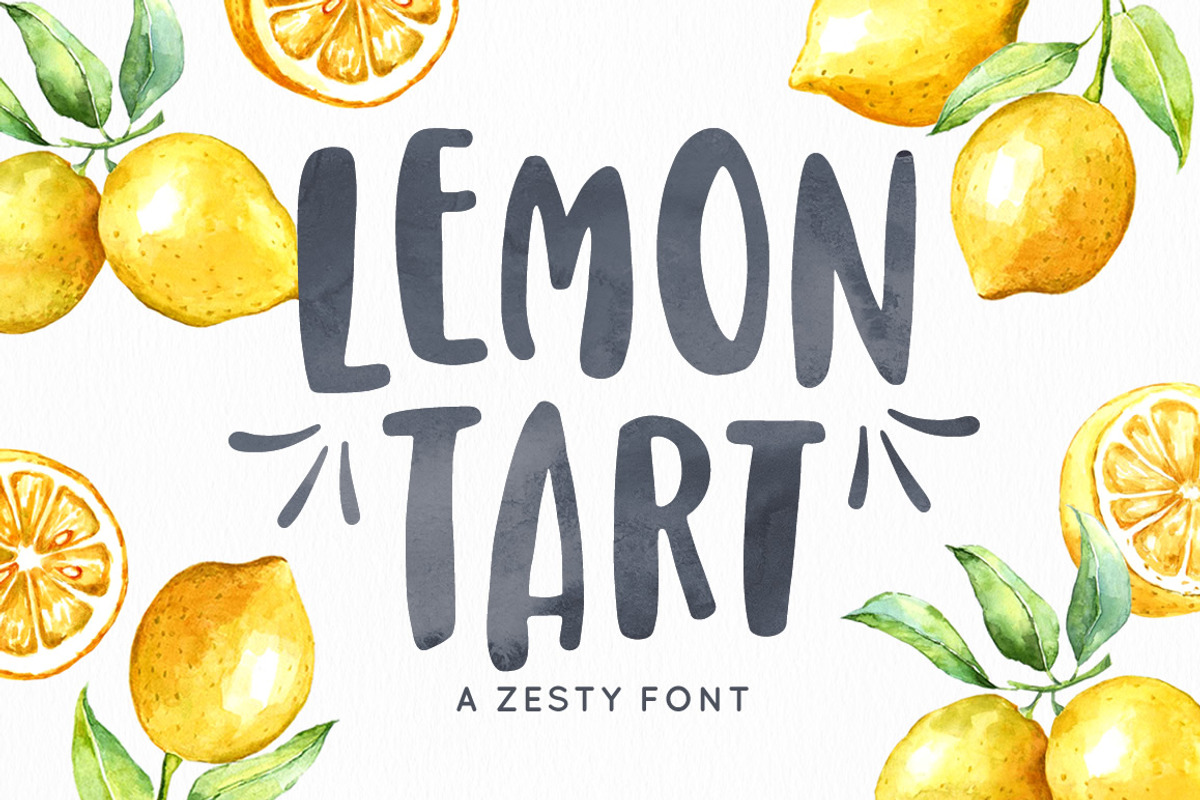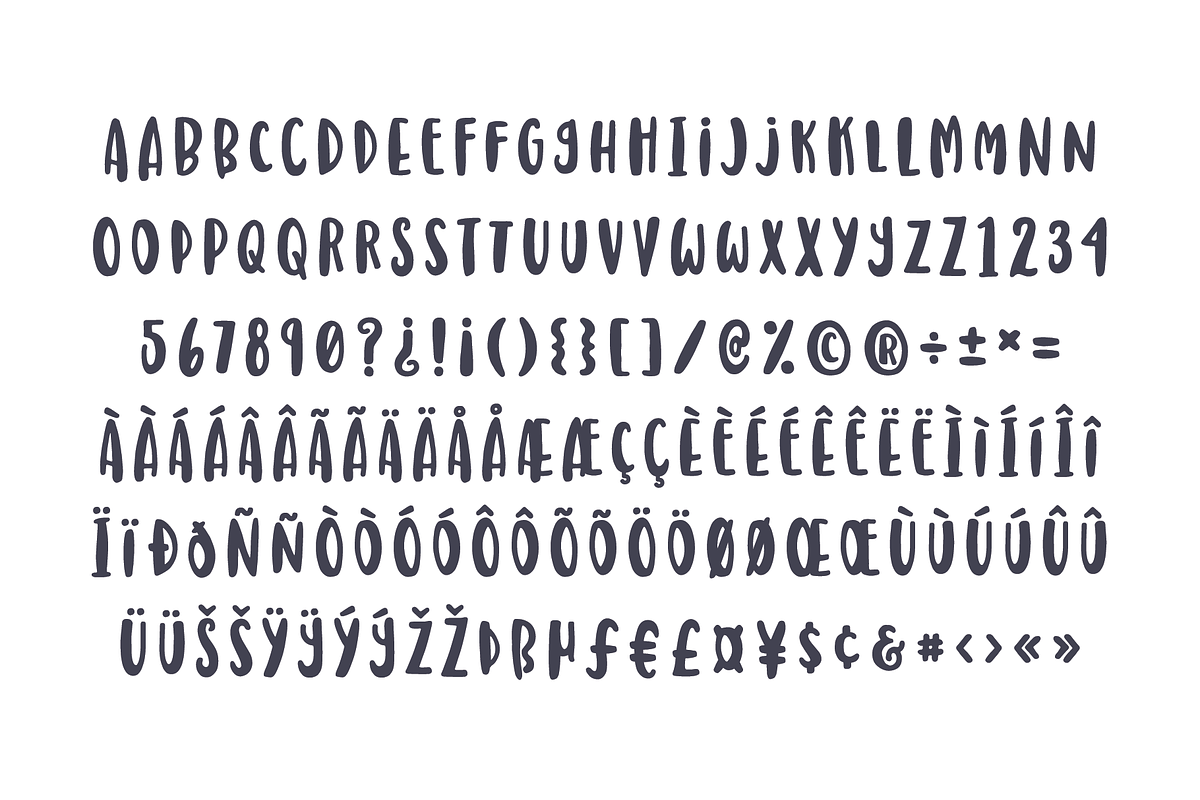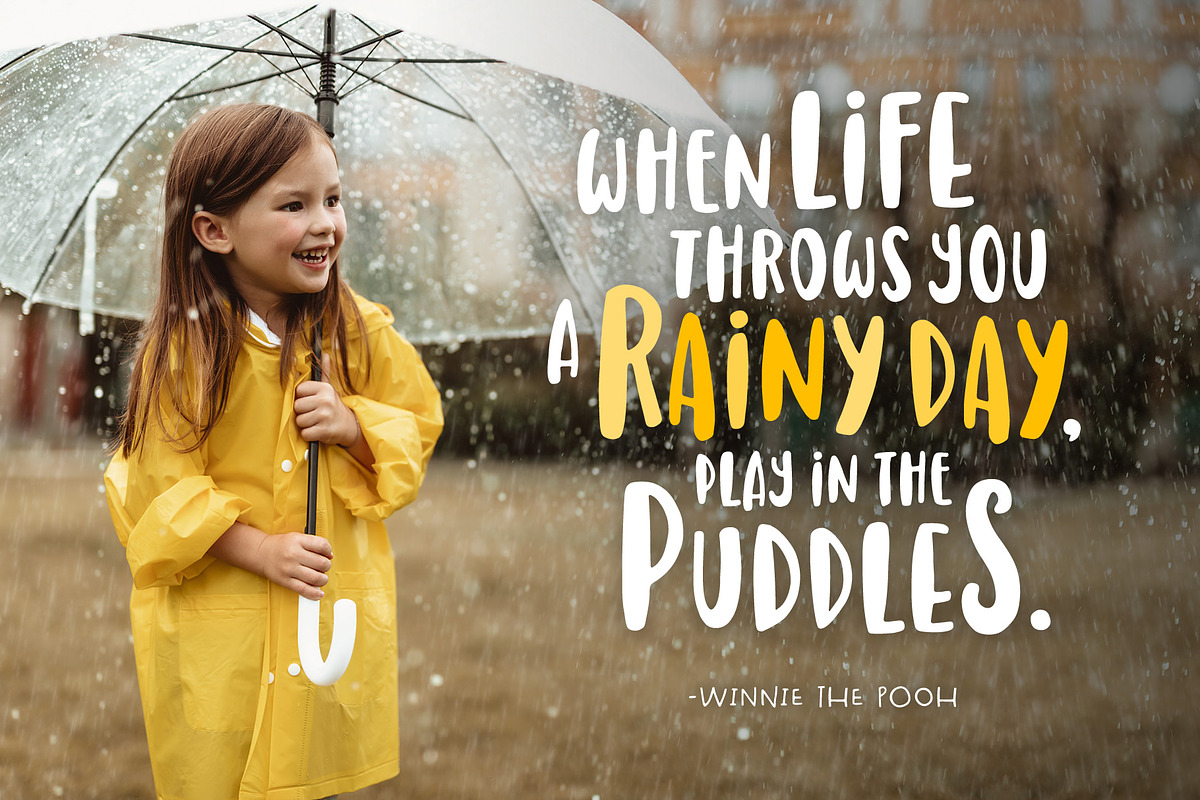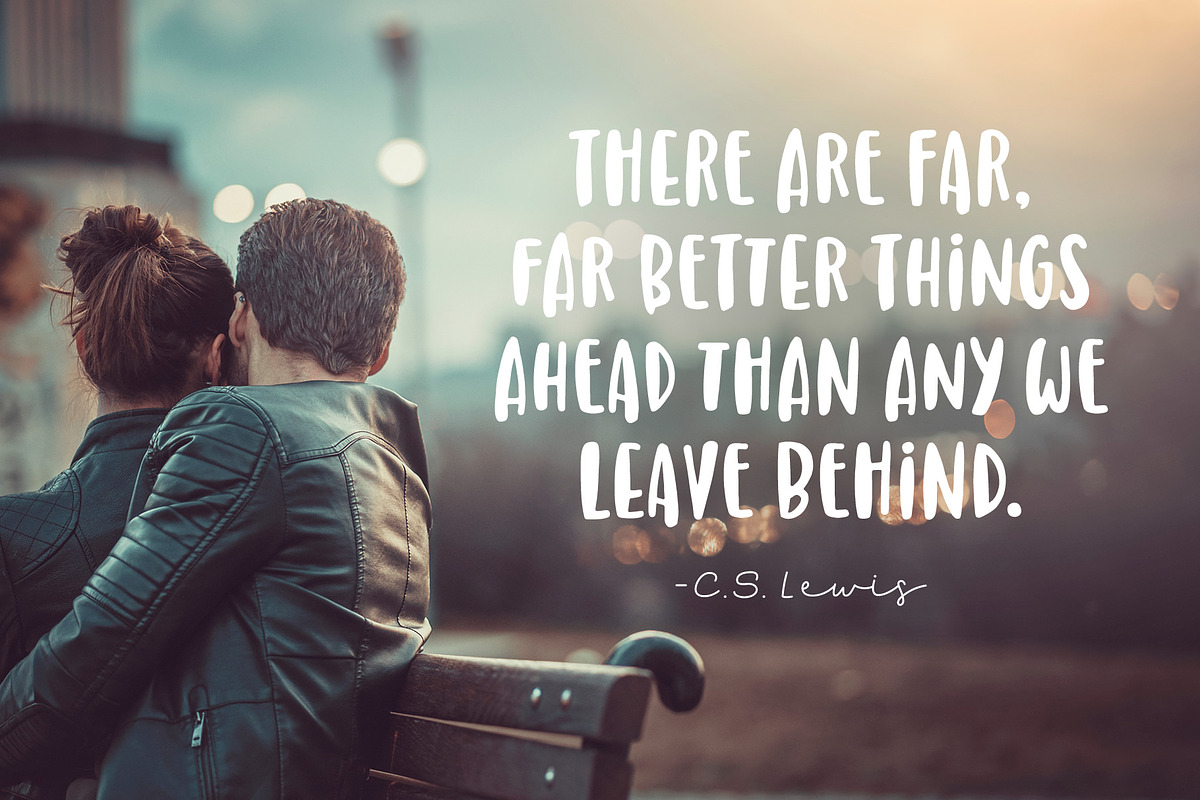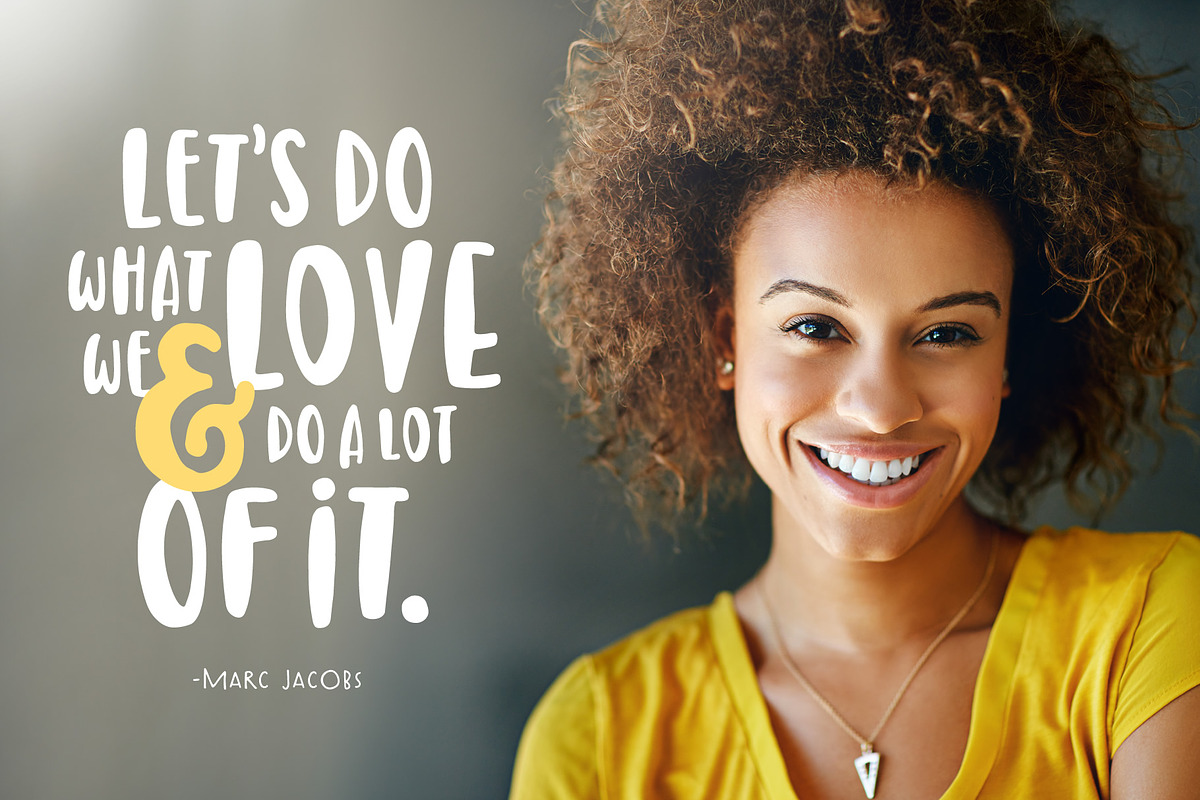
Lemon Tart Font
Lemon Tart is a sweet, hand-drawn, sans serif. It is an all-caps font which includes 2 variations of each uppercase letter (accessed with upper and lowercase keys). It has a condensed and bold style that can make a statement on any project.